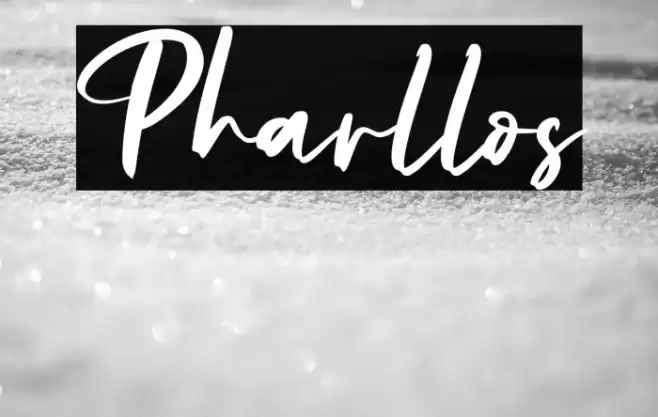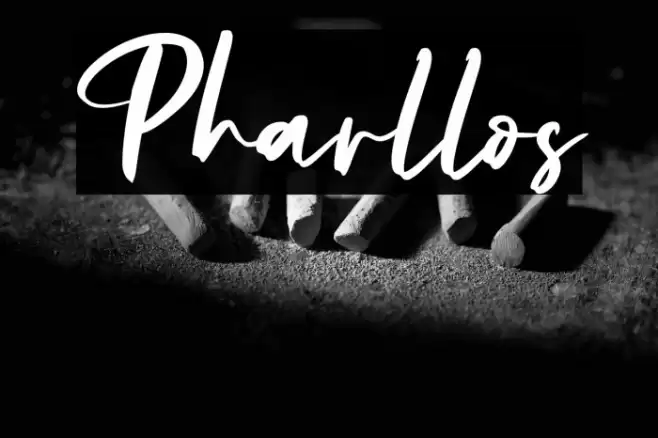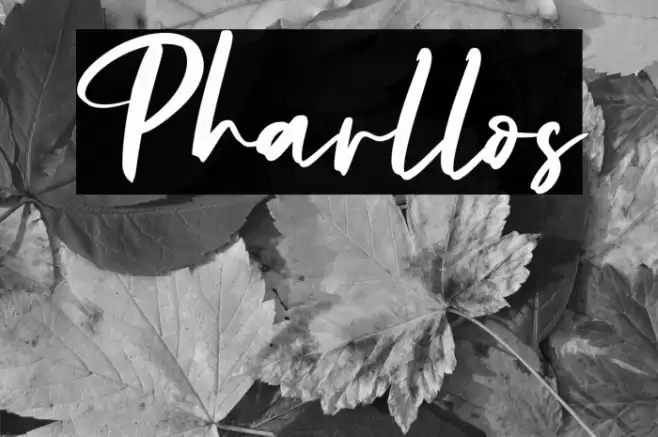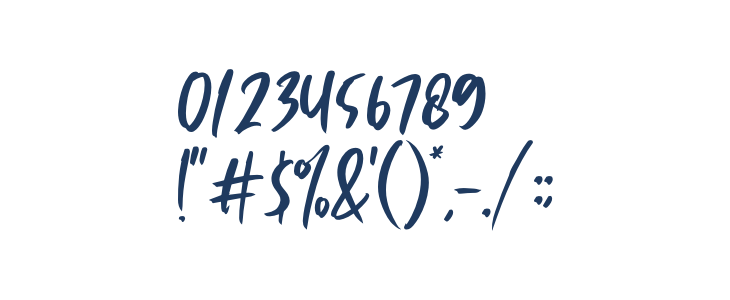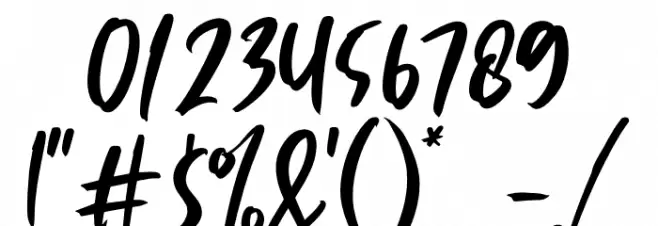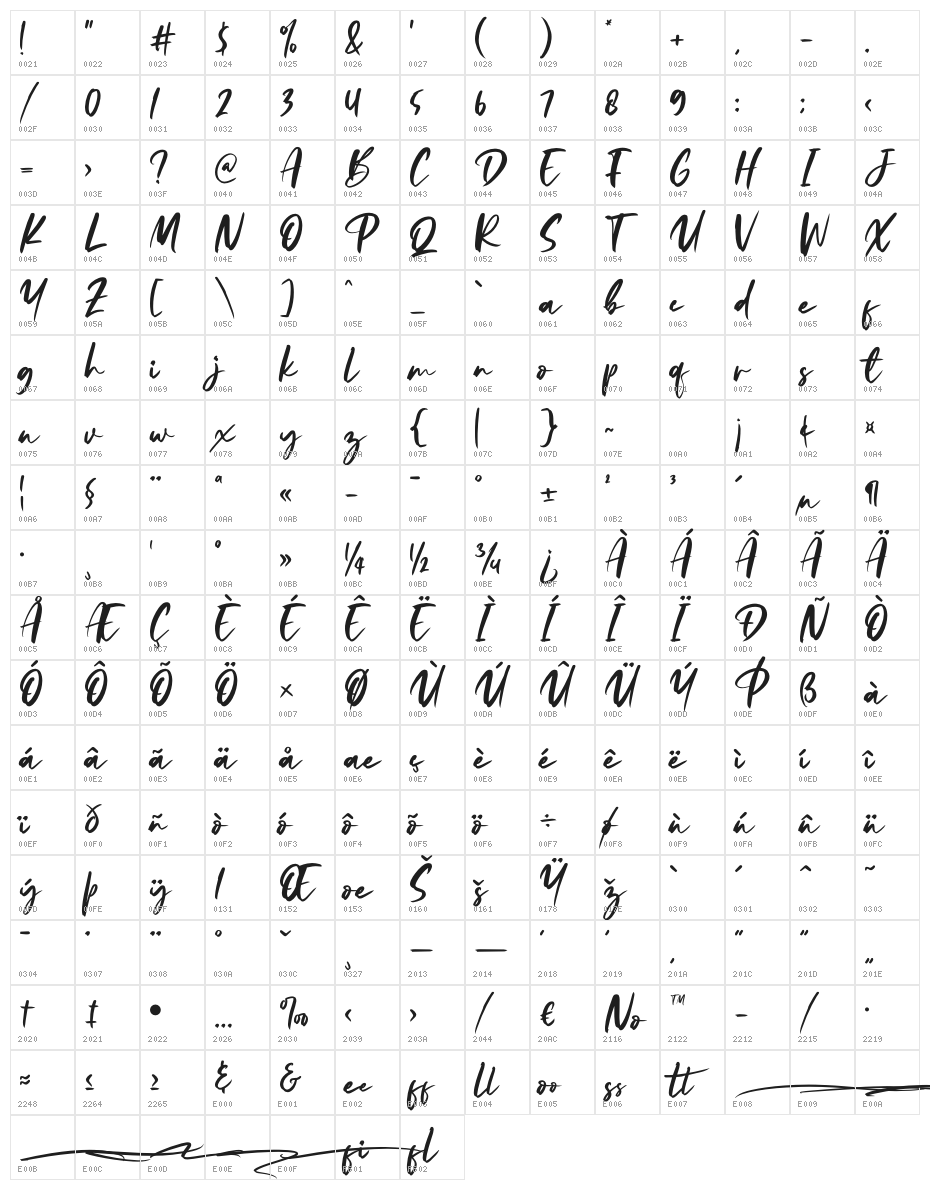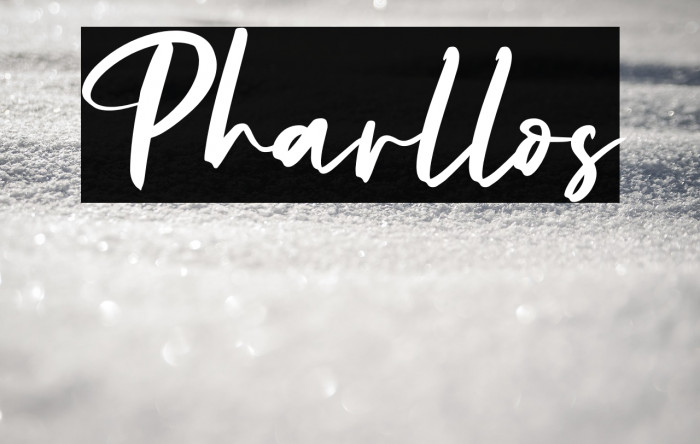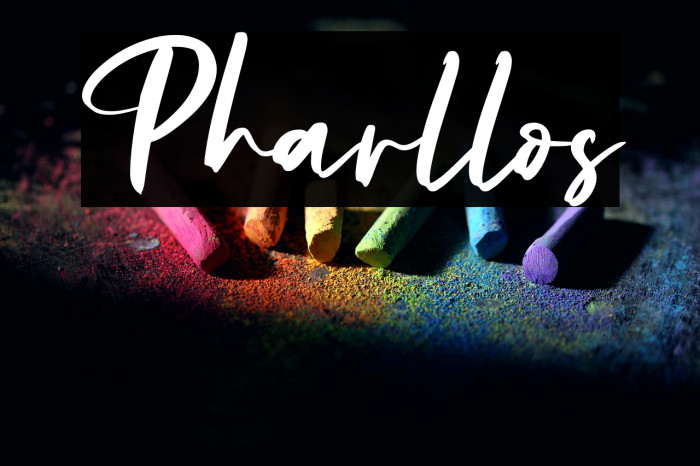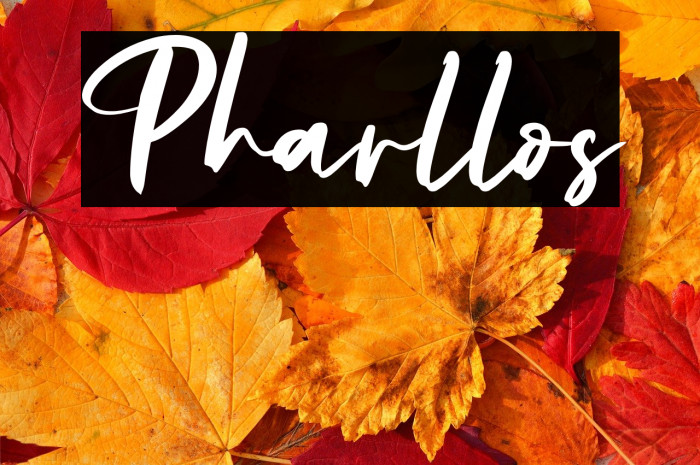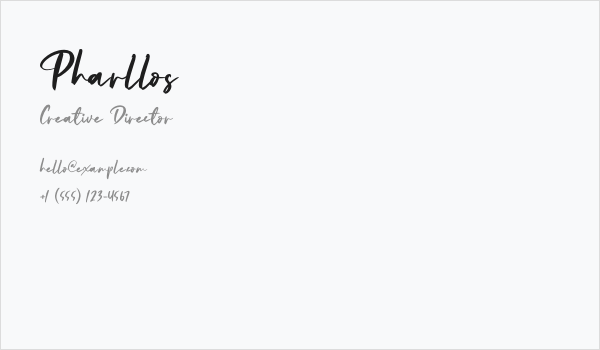
Pharllos Font
Pharllos Description
This font features a dynamic and expressive handwritten style, characterized by its fluid and cursive letterforms. The strokes are bold and confident, with a natural flow that mimics the movement of a brush or pen. The uppercase letters are particularly striking, with sweeping curves and dramatic flourishes, while the lowercase letters maintain a consistent rhythm and balance. The numerals and special characters are equally expressive, adding to the overall cohesive look. This font exudes a sense of creativity and spontaneity, making it ideal for projects that require a personal touch.
A bold, expressive handwritten font with fluid, cursive strokes from Uncategorized fonts.